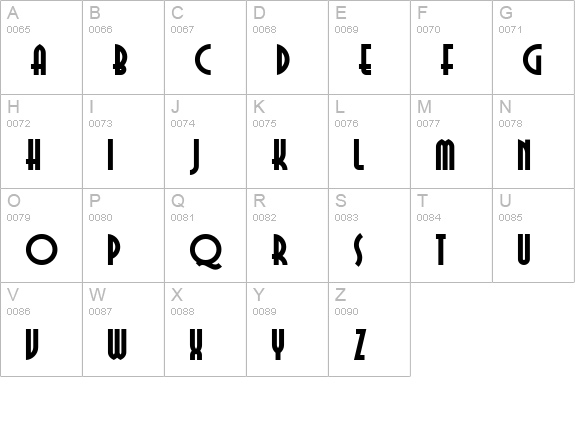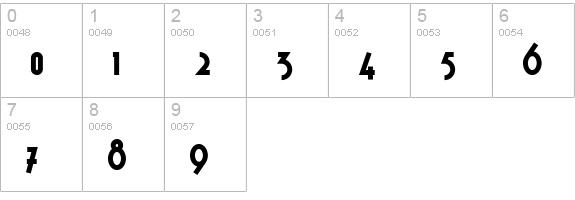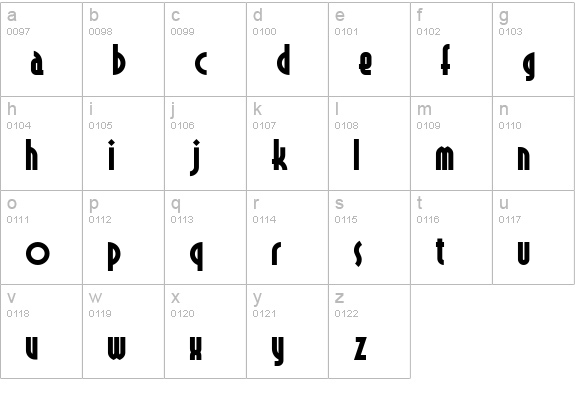
Selznick Remix NF Font Details
Selznick Remix NF is a captivating and versatile font that effortlessly combines classic elegance with a modern twist. With its unique and stylish design, this font is perfect for adding a touch of sophistication to your projects. The sleek lines and sharp edges of Selznick Remix NF make it stand out, whether used for headlines, logos, or body text. What sets Selznick Remix NF apart is its versatility - it can easily adapt to various design styles and projects. Whether you're working on a sleek and modern website or a vintage-inspired poster, this font will elevate your design to the next level. Its bold and eye-catching appearance ensures that your message will be noticed and remembered. The best part? Selznick Remix NF is completely free to download at FontsMarket.com. This means that you can access this stunning font without any cost, making it a valuable addition to your font collection. Don't miss out on the opportunity to enhance your designs with Selznick Remix NF - download it today and unleash your creativity!